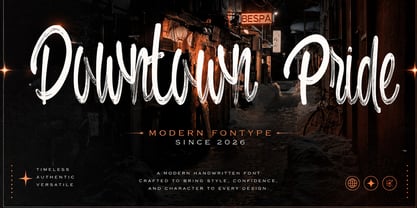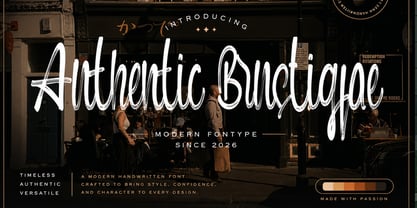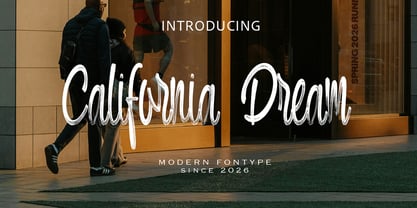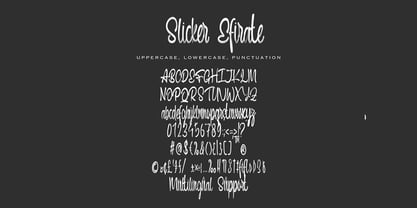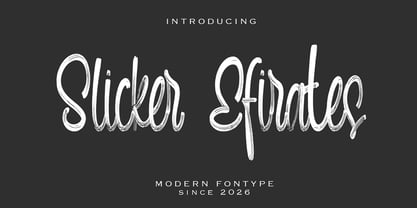
Slicker Efirates
por Pineungtype misinklab
La familia tipográfica Slicker Efirates fue diseñada por Beni Saswita y publicada por Pineungtype misinklab. Slicker Efirates contiene 1 estilos. Más información sobre esta familia
Slicker Efirates is a modern handwritten font with an expressive brush texture and smooth flowing strokes. Designed with a natural marker-style movement, this typeface brings an authentic handcrafted feel while still looking stylish and contemporary. Its tall letterforms, rough ink details, and energetic curves make it perfect for branding, logo design, social media graphics, fashion editorials, posters, album covers, packaging, and modern lifestyle projects.
Whether you want to create a bold statement or add a personal artistic touch, Slicker Slides delivers a unique balance between elegance and raw brush energy. This font works beautifully in both minimalist and edgy creative concepts, making it highly versatile for designers who want typography with strong personality and visual impact.